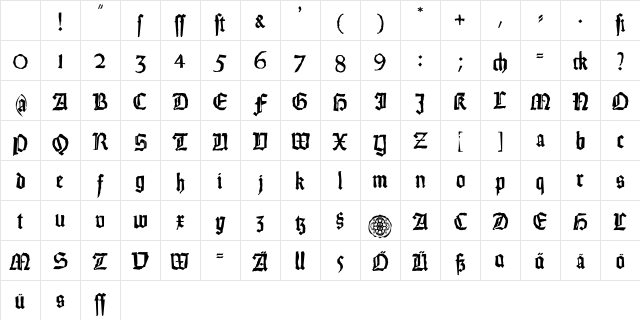
Complete Weiss-Gotisch-Random Regular glyph index. Displaying only characters natively supported by Weiss-Gotisch-Random Regular font.
Weiss-Gotisch-Random is a composed and adaptable typeface that performs quietly and consistently across a wide range of design contexts.